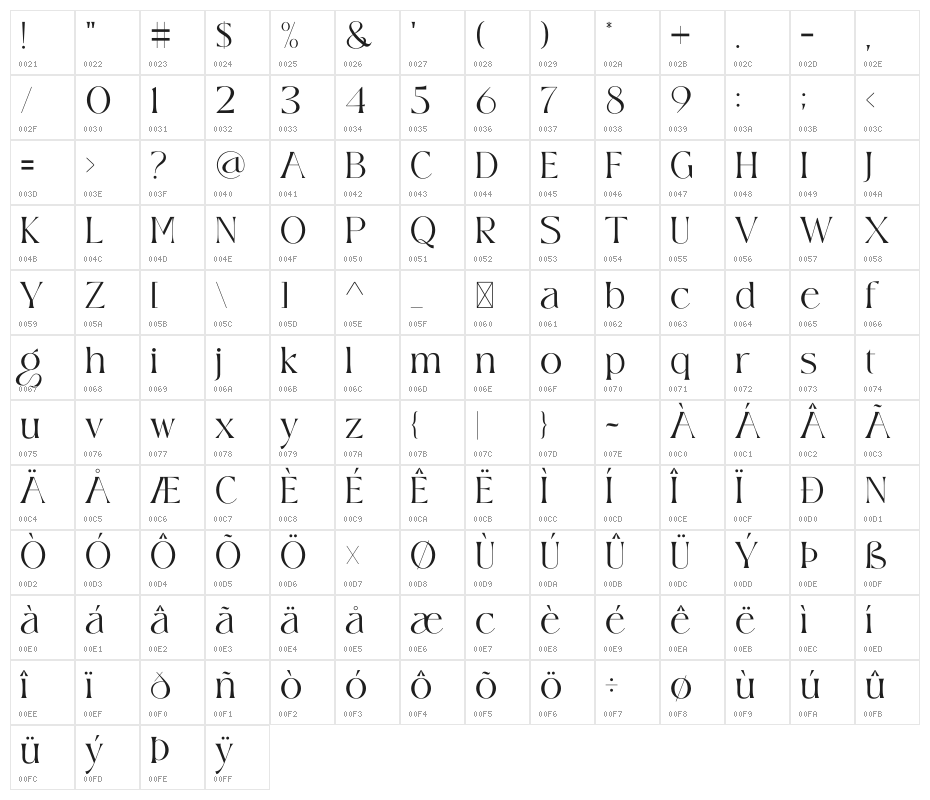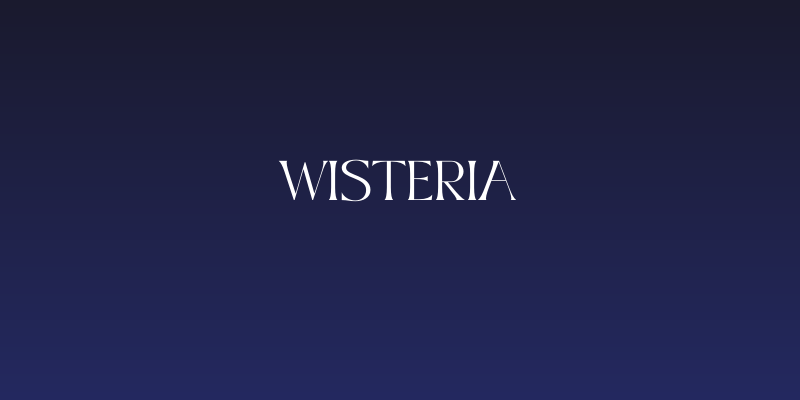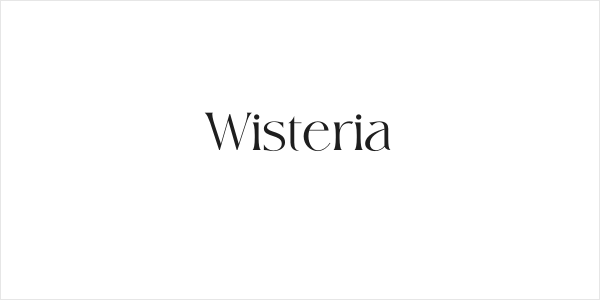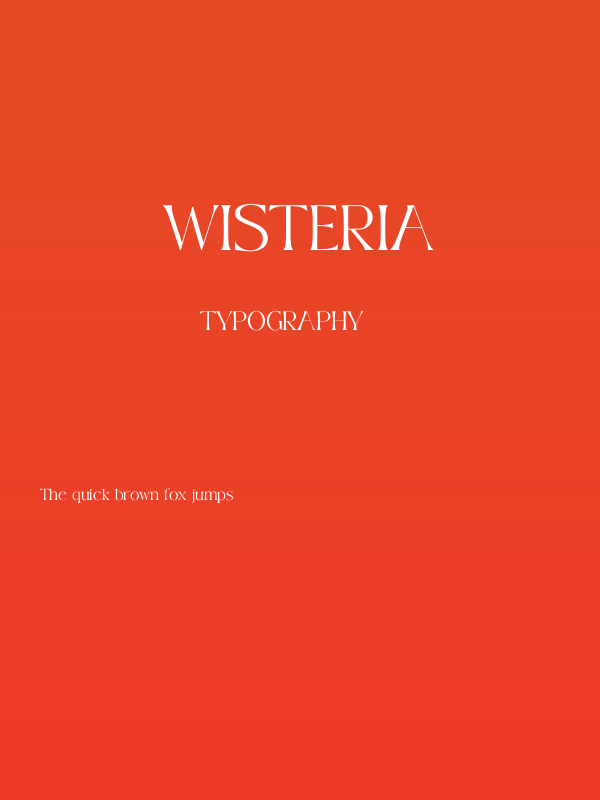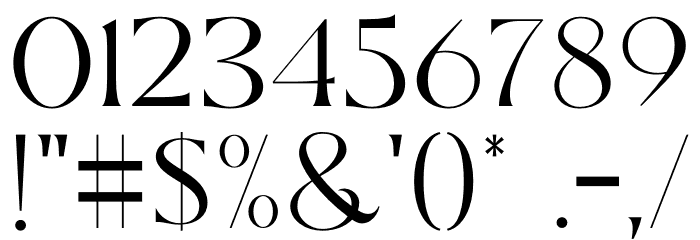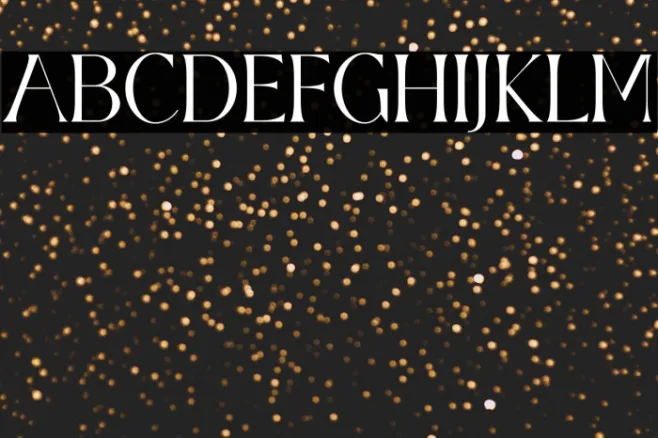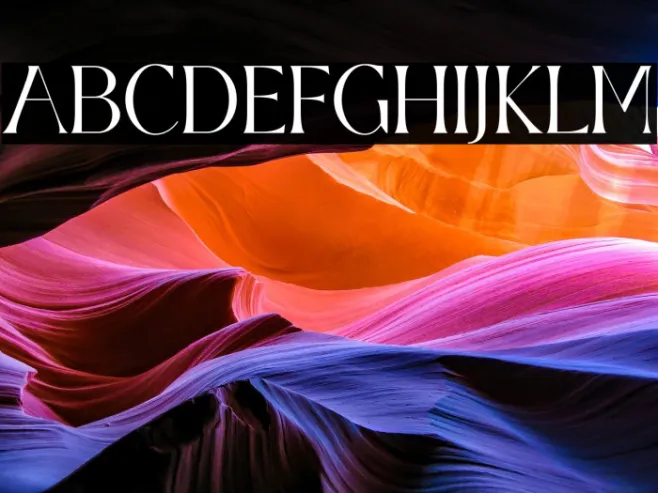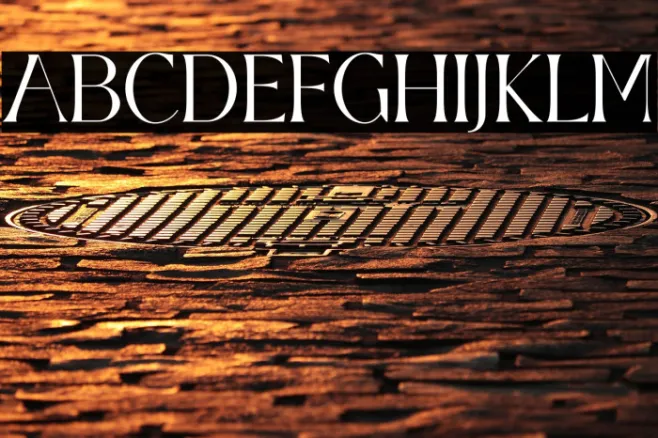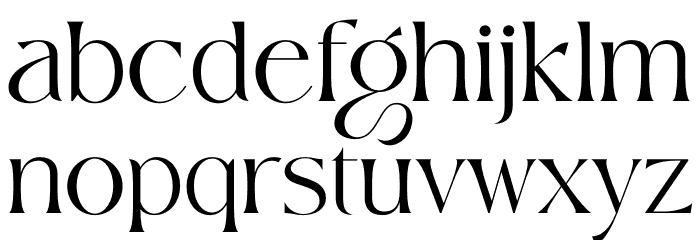
Wisteria Font
Wisteria Description
This elegant serif font features a sophisticated blend of classic and modern elements. The uppercase letters are characterized by their tall, slender forms with subtle curves and sharp serifs, giving them a refined and stylish appearance. The lowercase letters maintain a harmonious balance with slightly rounded edges and a graceful flow, enhancing readability. The numerals are distinct and well-proportioned, complementing the overall aesthetic. Special characters are thoughtfully designed, maintaining consistency with the font's elegant style. This font exudes a sense of luxury and sophistication, making it ideal for high-end branding and editorial design.
| Use Case | Headlines, Logos, Editorial design |
| Proposed Projects | Ideal for luxury branding, editorial design, wedding invitations, and high-end product packaging. |